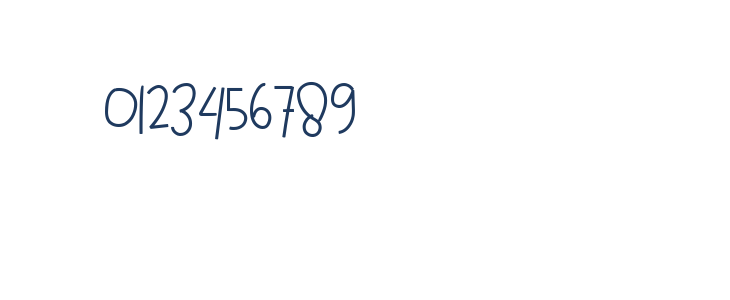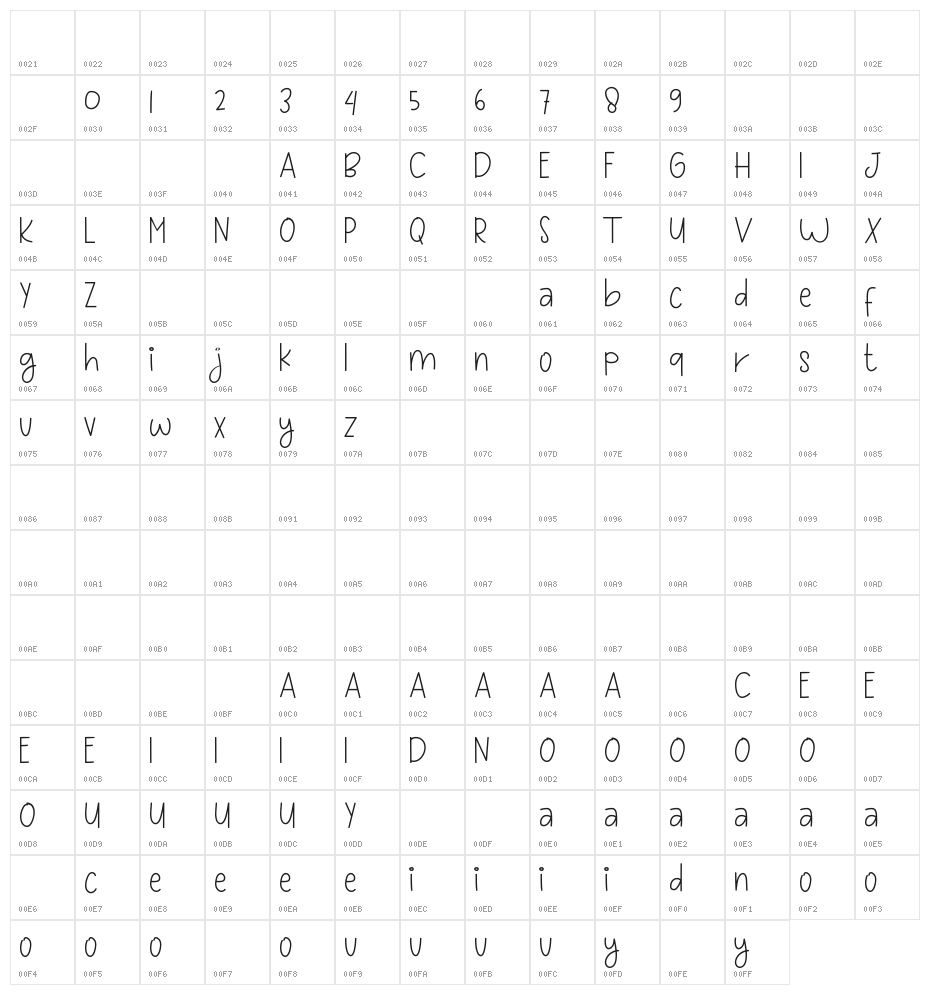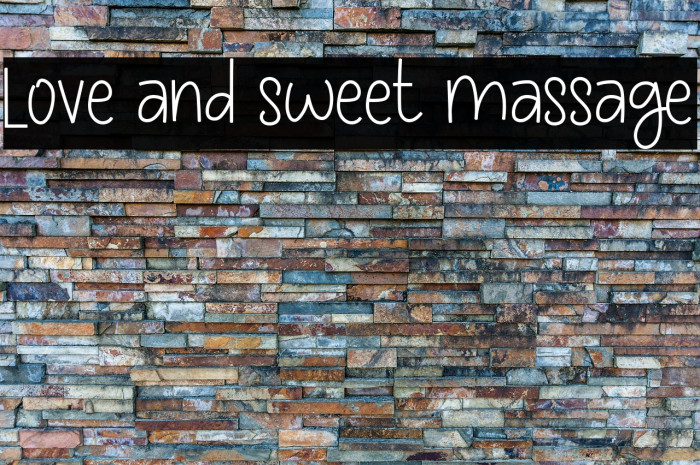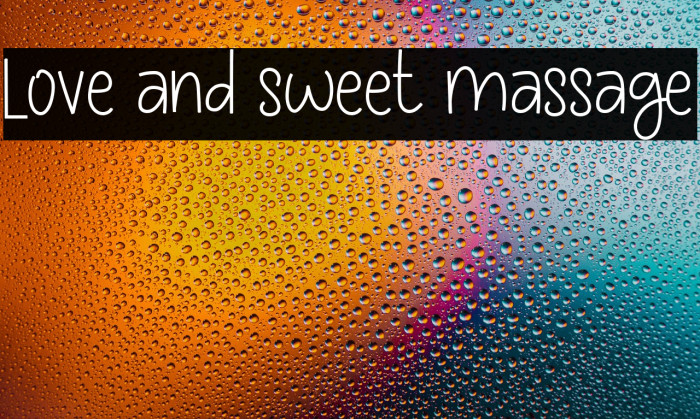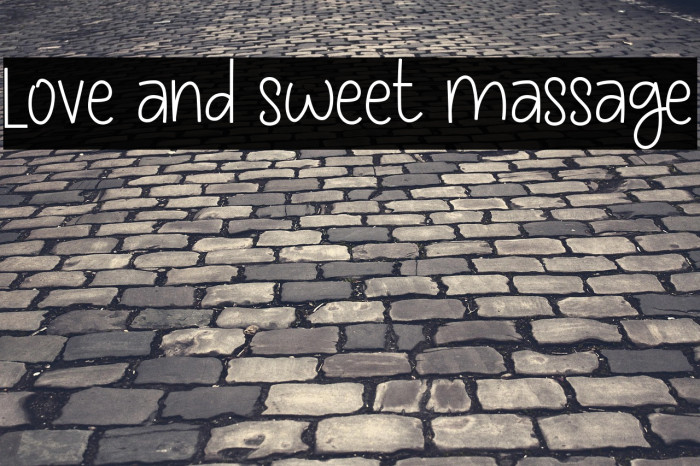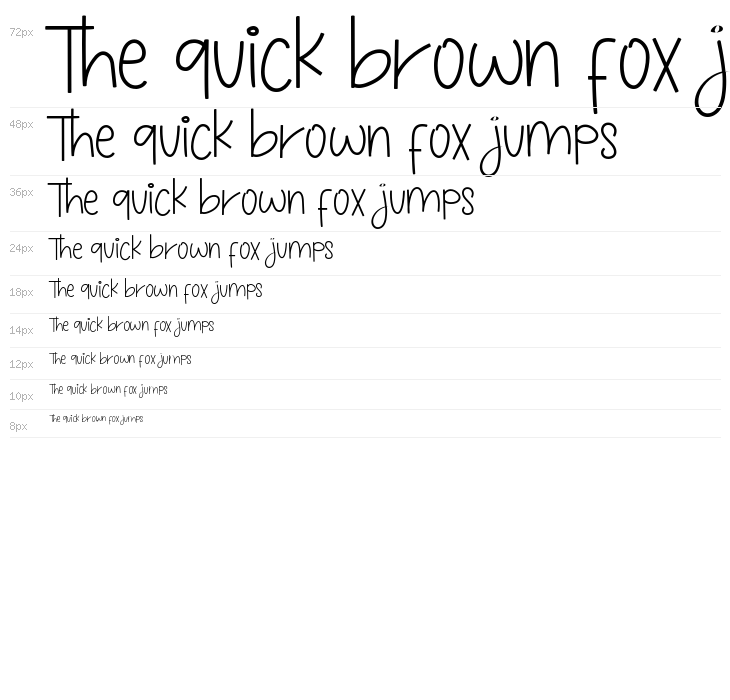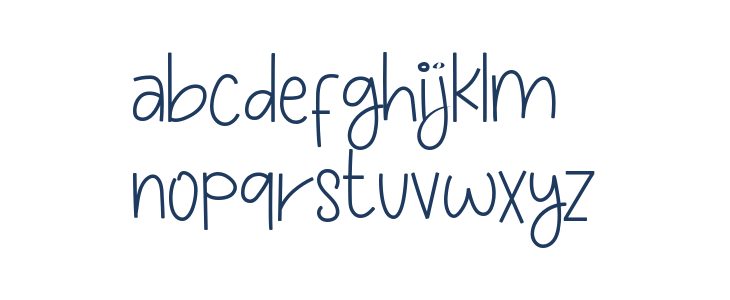
Love and sweet massage Font
Love and sweet massage Description
This playful and whimsical font features a handwritten style with a casual, friendly appearance. The characters are tall and narrow, with a slight slant that adds a touch of dynamism. The strokes are consistent in width, giving the font a clean and modern look. The rounded edges and smooth curves enhance its approachable feel, making it ideal for projects that require a personal touch. The font includes both uppercase and lowercase letters, numerals, and a selection of special characters, ensuring versatility in its application.
| Use Case | Logos, Headlines, Informal text |
| Proposed Projects | Ideal for greeting cards, children's books, playful branding, and social media graphics. |